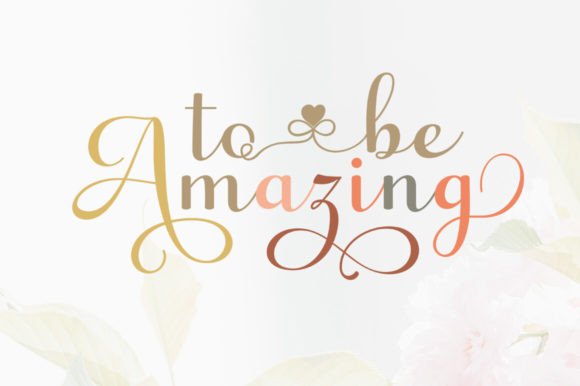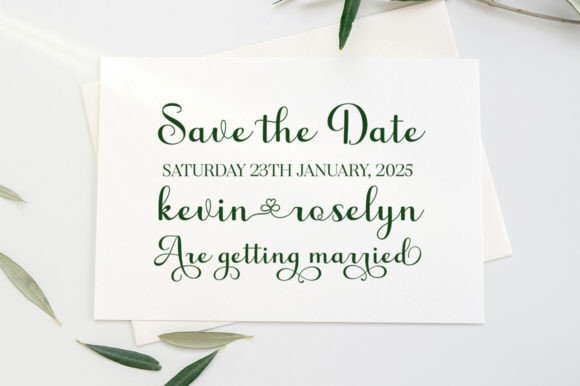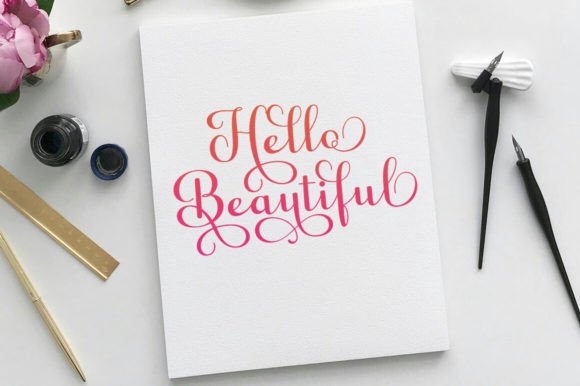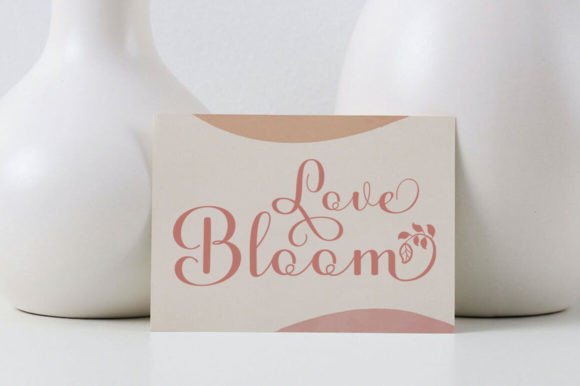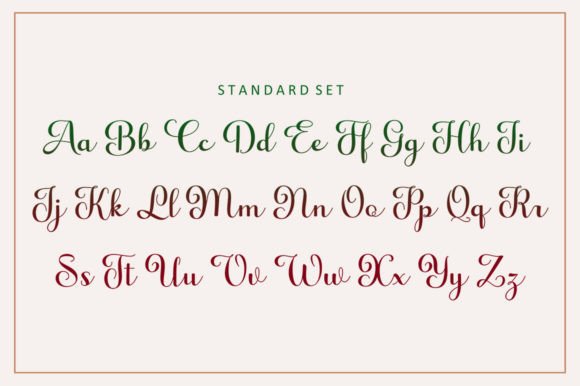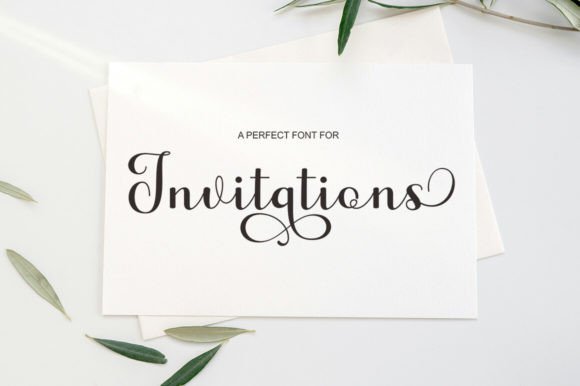
Bening Script Font: Elevate Your Designs with a Touch of Elegance
In the world of typography, script fonts hold a special place for their elegance, fluidity, and ability to add a personal touch to any design. Among the myriad of script fonts available, Bening Script stands out as a modern, trendy, and feminine addition that can elevate your designs to new heights. Whether you’re working on wedding invitations, thank you cards, quotes, greeting cards, logos, or business cards, Bening Script is the perfect choice for adding a sophisticated flair.
The Unique Charm of Bening Script
Bening Script is characterized by its irregular baseline, which gives it a distinctive and contemporary look. This unique feature, combined with its trendy and feminine style, makes it an excellent choice for designers and crafters looking to add a modern twist to their projects. The font’s design ensures that it looks lovely in various applications, from traditional ink to watercolour designs, offering versatility and creative freedom.
Key Features of Bening Script
- Irregular Baseline: The font’s irregular baseline sets it apart from more traditional script fonts, giving it a modern and dynamic feel.
- Trendy and Feminine: Bening Script embodies a trendy and feminine style, making it perfect for designs that require a touch of elegance and sophistication.
- Initial and Terminal Letters: The inclusion of initial and terminal letters allows for greater flexibility and creativity in your designs.
- Alternates: With alternates, you have the option to vary your text, making each piece unique and tailored to your project’s needs.
- Multiple Language Support: Bening Script supports multiple languages, ensuring that you can use it for a wide range of projects without worrying about language limitations.
Bening Script’s versatility makes it suitable for a variety of design projects. Here are some of the ways you can use this beautiful font:
- Wedding Invitations: Add a touch of elegance and romance to your wedding invitations with Bening Script.
- Thank You Cards: Express gratitude in style with beautifully designed thank you cards.
- Quotes: Make your quotes stand out with a font that is both trendy and easy to read.
- Greeting Cards: Whether it’s a birthday, anniversary, or holiday greeting, Bening Script adds a personal touch.
- Logos: For businesses that want to convey elegance and sophistication, Bening Script can be a great choice for a logo.
- Business Cards: Stand out in the professional world with stylish business cards featuring Bening Script.
Tips for Using Bening Script
To make the most of Bening Script, consider the following tips:
- Pair with Complementary Fonts: For maximum impact, pair Bening Script with fonts that complement its style. A sans-serif font can provide a nice contrast.
- Experiment with Colors: Bening Script looks stunning in ink or watercolour designs. Don’t be afraid to experiment with different colors and techniques.
- Play with Alternates: Take advantage of the font’s alternates to create unique and varied designs.
Bening Script is a versatile and elegant font that can add a touch of sophistication to any design project. Its unique irregular baseline, trendy and feminine style, and extensive features make it a valuable addition to any designer’s toolkit. Whether you’re creating wedding invitations, greeting cards, logos, or business cards, Bening Script is sure to elevate your designs and leave a lasting impression.